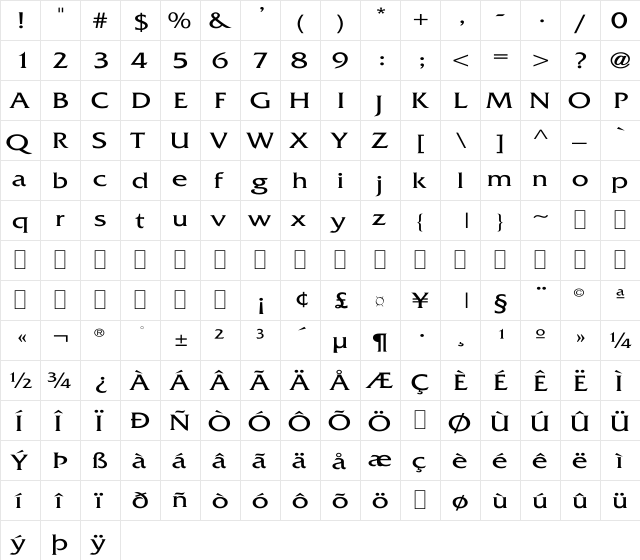
BD Quattra Regular
Design Context for BD Quattra Typeface
BD Quattra offers clean, dependable letterforms without strong stylistic allegiance, making it a practical choice for designers who need flexibility. Its bold stroke weight gives it real presence on the page.
Pro Tip: Use BD Quattra in both headline and body roles to test its range before committing to a single application.